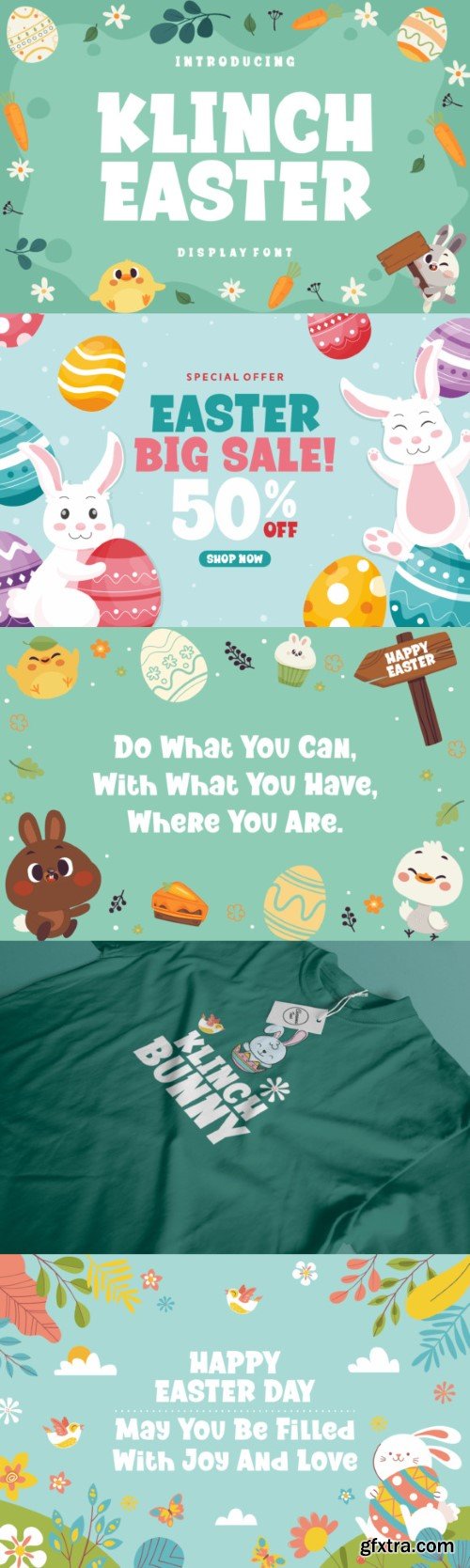
Klinch Easter is a playful display font, perfect for your Easter-themed projects. It’s suitable for various products such as invitations, product packaging, quotes, product design, crafter, labels, photography, watermarks, logos & branding.